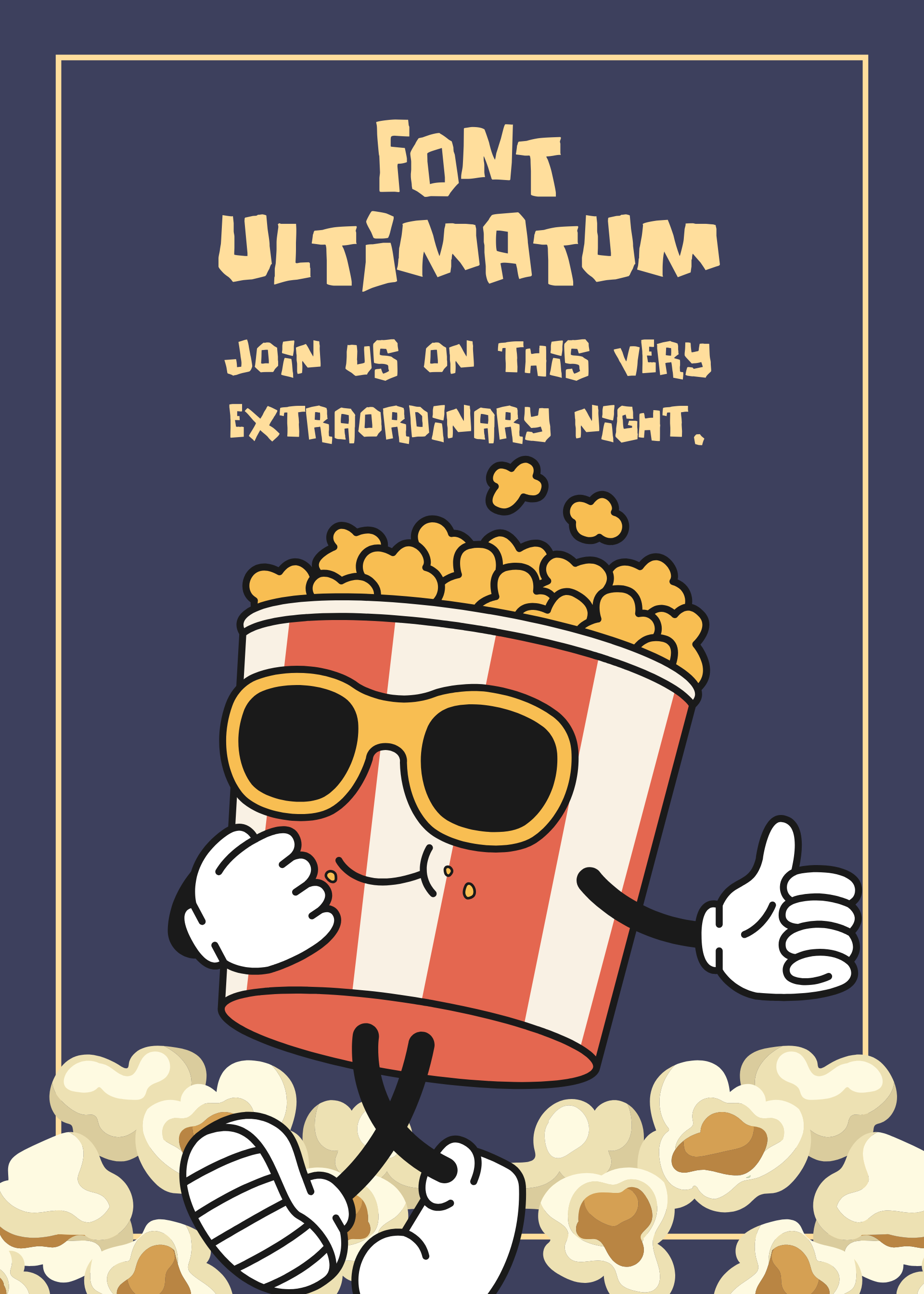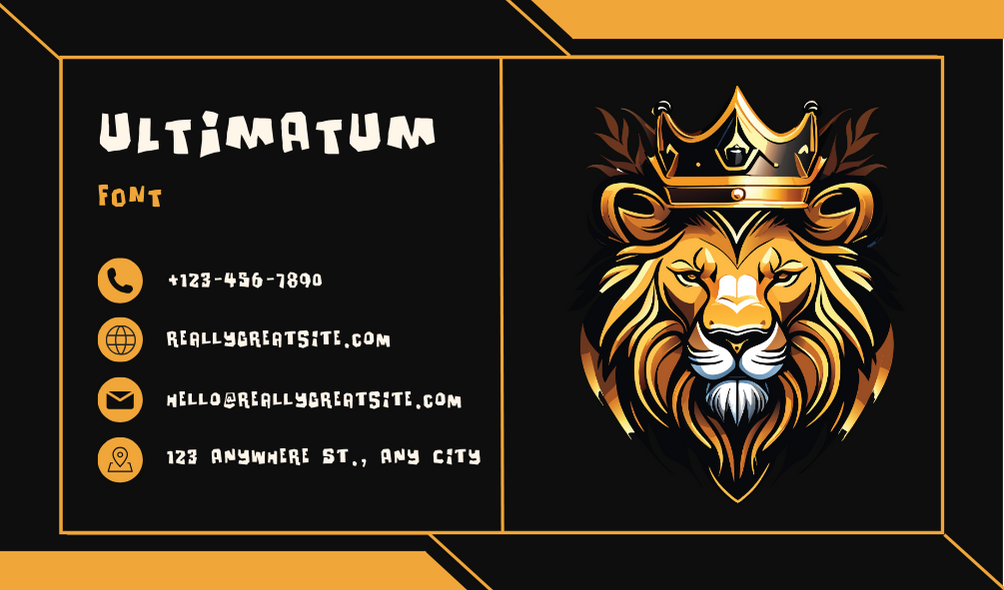
The font Ultimatum is a great choice for any design that needs a fun and playful touch. It is available in the Regular subfamily, which means that it has a simple and straightforward appearance.
Ultimatum